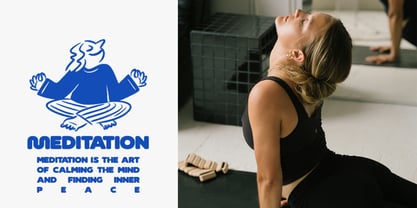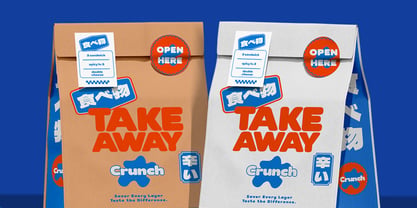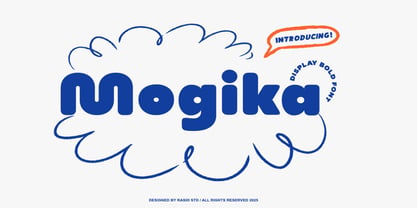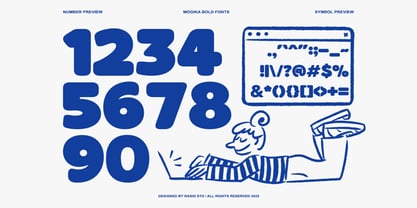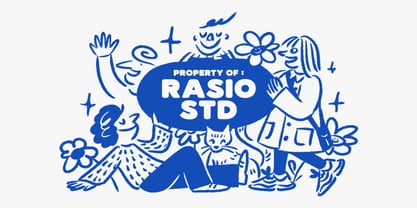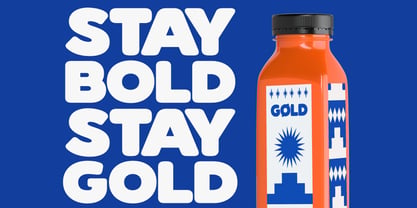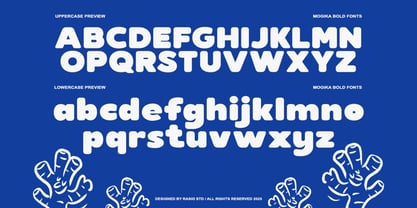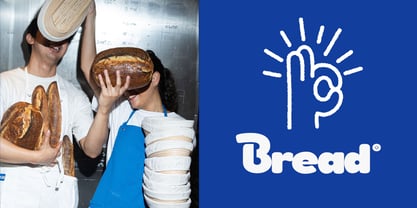
Mogika
by Rasio Studio
The Mogika Font Family was designed by Fajar Indra and published by Rasio Studio. Mogika contains 1 styles. More about this family
Mogika Display Bold Font brings a burst of playful energy with its chunky rounded shapes and cheerful curves. Designed to be bold yet friendly, Mogika captures the fun of hand-drawn bubble typography while maintaining a clean, digital precision. Its solid weight and quirky proportions make every word pop with confidence and charm. This font includes uppercase, lowercase, numbers, punctuation, and symbols — perfect for headlines, posters, kids’ illustrations, social media graphics, and modern branding that aims to feel approachable and creative.